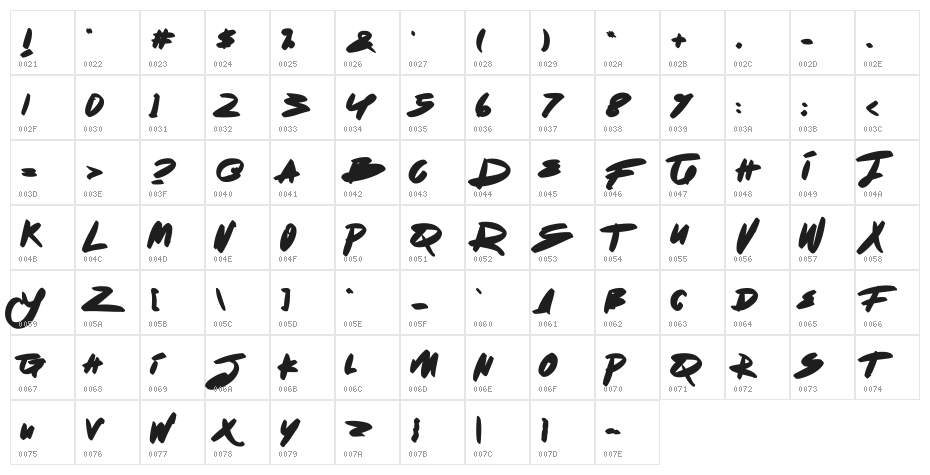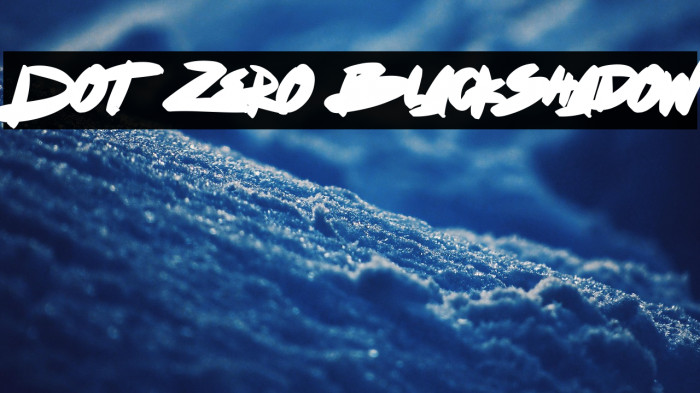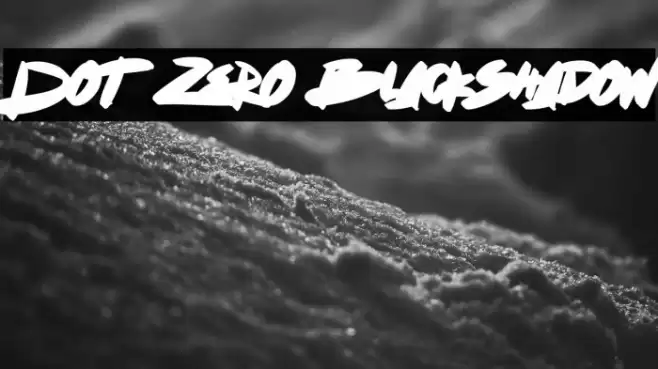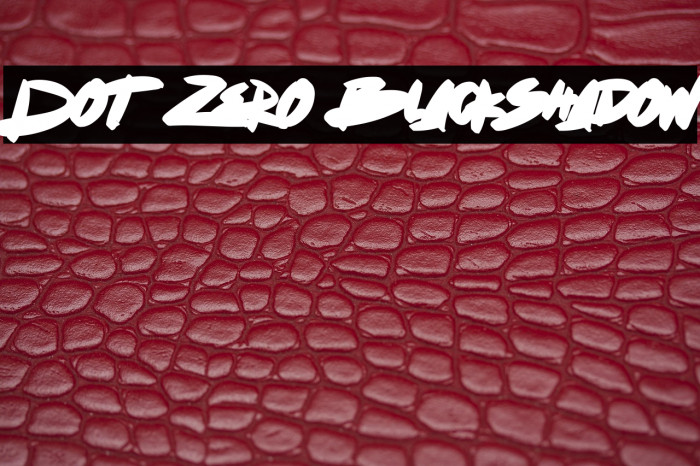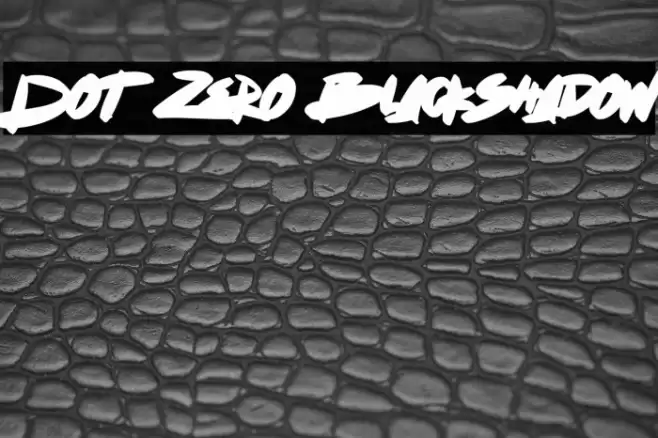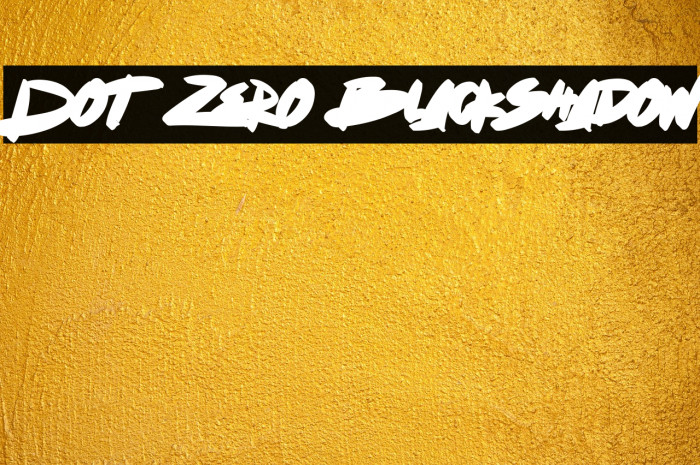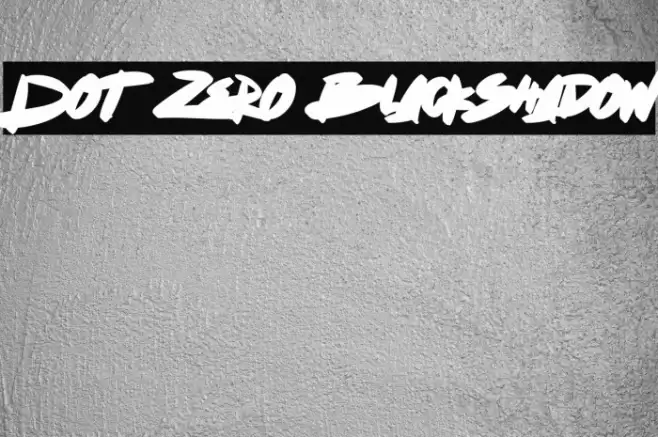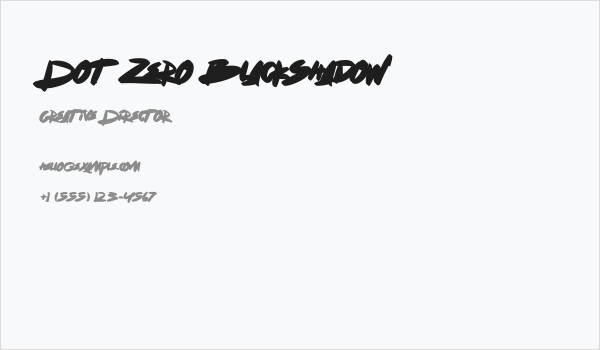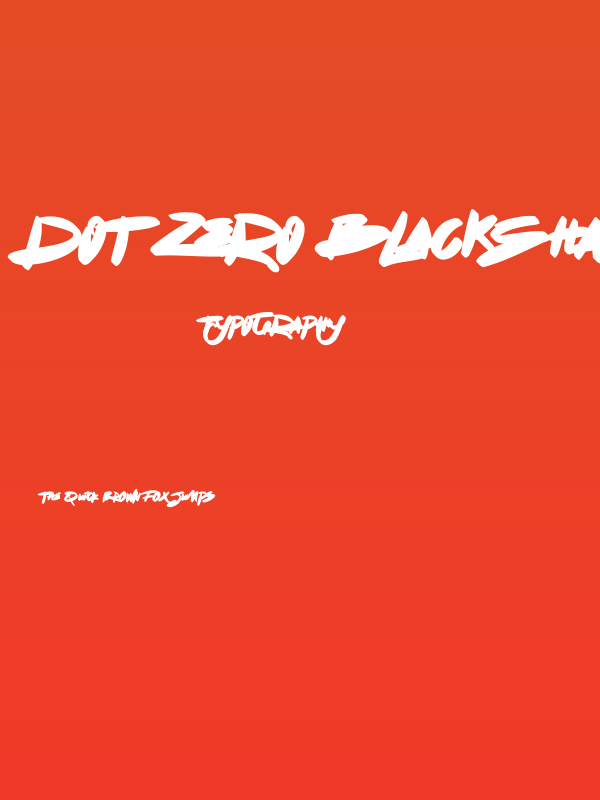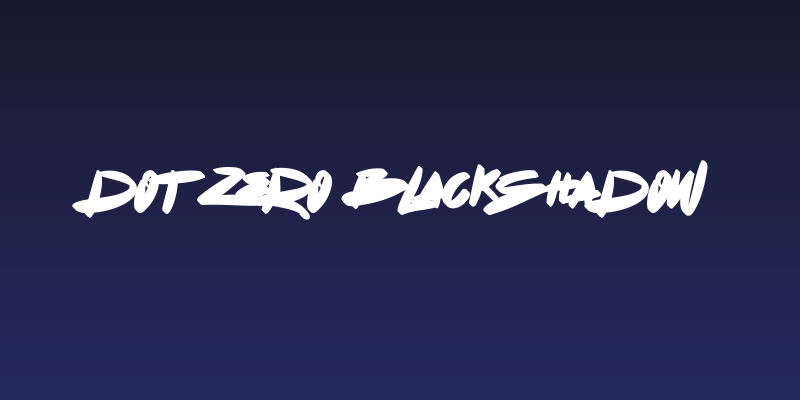
Dot Zero Blackshadow Font
Dot Zero Blackshadow Description
This bold and expressive font features a dynamic brush script style with thick, flowing strokes that create a sense of movement and energy. The characters are closely spaced, giving a compact and cohesive appearance. The uppercase and lowercase letters maintain a consistent style, with exaggerated curves and sharp angles that add a sense of urgency and flair. The numbers and special characters are equally bold, ensuring they stand out in any design. This font is perfect for projects that require a strong, impactful visual presence.